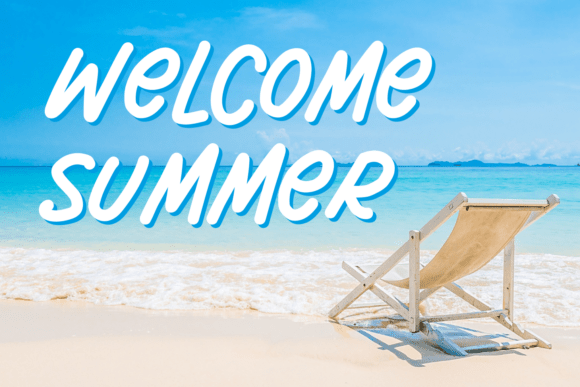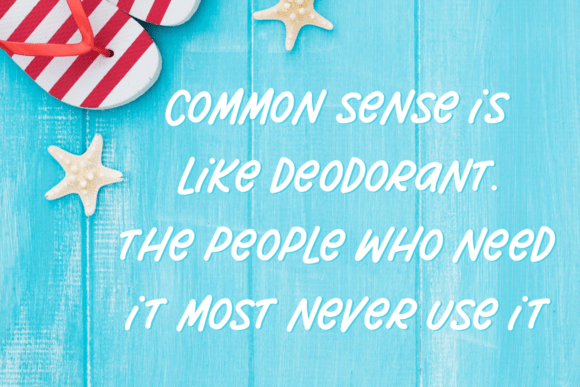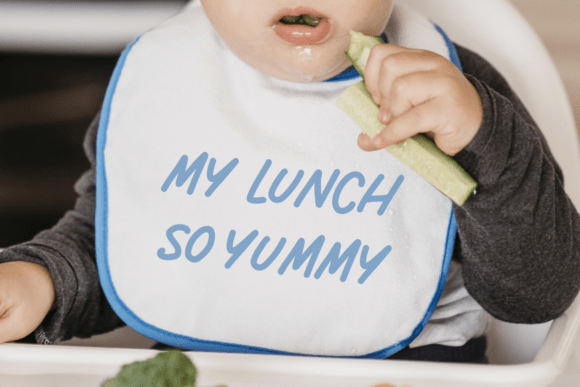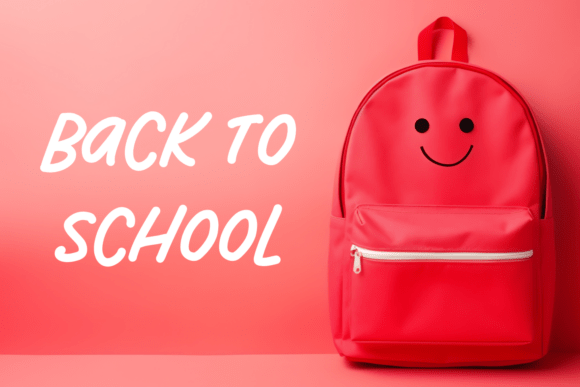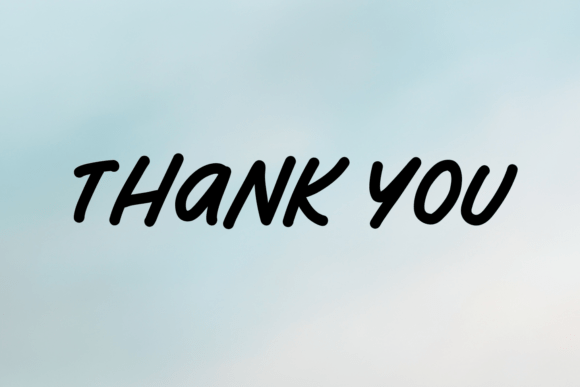
Introduction to Quicky Bunny Font
Have you ever been in a brainstorming session, surrounded by sticky notes and scraps of paper, and suddenly, a spark of creativity hits you? The ideas start flowing, and your imagination runs wild. For designers, those moments are what make the job truly rewarding. But, how do you capture that excitement and bring it to life? That’s where the Quicky Bunny Font comes in – a dynamic, playful handwritten font duo that’s designed to add a touch of whimsy and personality to any project.
With its smooth curves and naturally flowing style, the Quicky Bunny Font is the perfect design resource for creative projects. Whether you’re working on a social media graphic, a t-shirt design, or a packaging label, this font is sure to make your text stand out. Its friendly appearance and effortless readability make it a high-quality choice for designers who want to add a fresh, handwritten touch to their work.
Key Features of Quicky Bunny Font
- High-quality, unique design for creative projects, making it an ideal design resource.
- Unique characteristics include whimsical illustrations and playful typography, adding a touch of personality to creative projects.
Honest Review: Quicky Bunny Font
I recently had the chance to work with the Quicky Bunny Font, and I must say it’s a great addition to any creative project. The font’s high quality and unique design make it perfect for designers looking to add a touch of whimsy to their work.
One of the standout features of the Quicky Bunny Font is its high-resolution design, which makes it perfect for use in logos, graphics, and other design elements. The font also comes with a transparent background, making it easy to use with any design resource.
Here are some of the things that work well with the Quicky Bunny Font:
- Unique and creative design
- High-quality resolution
- Only available in a few font weights
- Not suitable for large-scale typography
Overall, I’m impressed with the Quicky Bunny Font. While it may have some limitations, its unique design and high-quality resolution make it a great choice for designers looking to add a touch of personality to their work.
The Quicky Bunny Font is perfect for children’s books, cartoon-style designs, and any project requiring a fun, playful tone. It’s also great for adding a whimsical touch to your branding or marketing materials.